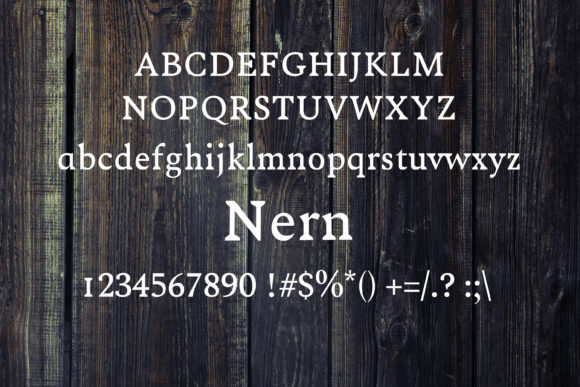
Introduction to Nern Font
Remember the moment when you finally found the perfect font to match your creative vision? For designers, that ‘aha’ moment is priceless. It’s the culmination of hours spent searching, experimenting, and refining until the perfect combination of style and functionality clicks into place.
One such game-changing font is the Nern Font, an incredibly cool serif font that exudes a cool vibe. Its unique blend of classic elegance and modern flair makes it a design resource like no other. Whether you’re working on a high-quality project or simply need a free download to spice up your next creative endeavor, the Nern Font is an invaluable asset in your design toolkit.
With its transparent background and versatility, the Nern Font is a go-to choice for designers seeking to add a touch of sophistication to their work. From logos and branding to editorial and advertising, this font is sure to elevate your creative project to new heights.
Key Features of Nern Font
- Unique, hand-drawn design with a transparent background
- Multi-language support for a global design audience
- Perfect for designers looking for a distinctive, creative font for their next project
Honest Review: Nern Font
I recently had the opportunity to work with the Nern Font, and I must say it’s a fantastic addition to my design resources. This font is perfect for creative projects where you need a unique and eye-catching typography.
Here’s what works well about the Nern Font: ✨ It’s incredibly easy to use, even for beginners. The font is available for free download, making it an excellent resource for designers on a budget. The design is modern and sleek, with a transparent background that allows for seamless integration with any design element. The font also comes in a high quality vector format, making it perfect for printing or digital use.
While the Nern Font is an excellent resource, there are a few limitations to be aware of: ⚠️ The font is not suitable for body text, as it can be difficult to read in smaller sizes. Additionally, the font may not be compatible with older software or systems.
Overall, I’m thoroughly impressed with the Nern Font. It’s a fantastic design resource that’s perfect for creative projects. I highly recommend it to any designer looking for a unique and high-quality typography.
- Modern and sleek design
- High quality vector format
Nern Font
Tips for Getting the Most Out of Nern Font
To get the most out of the Nern Font, use it on a transparent background to create a striking visual effect. You can also pair it with other high-quality fonts to create a unique design.
The Nern Font is ideal for creative projects such as: